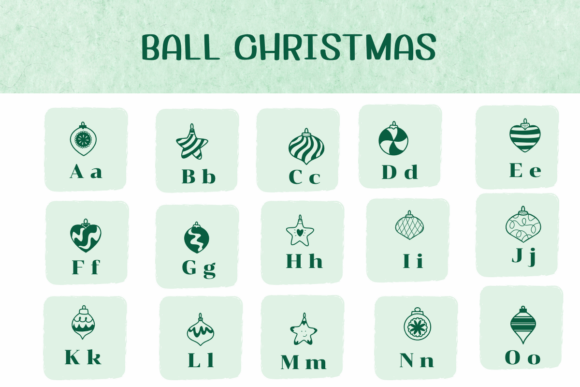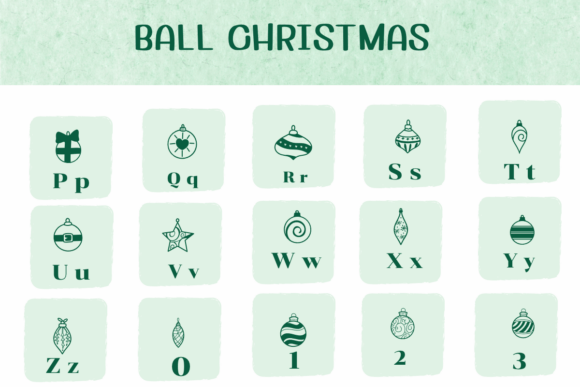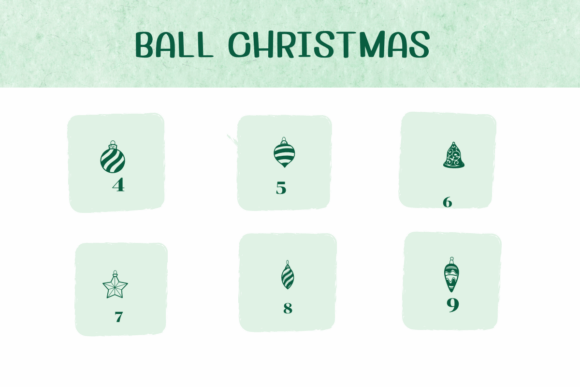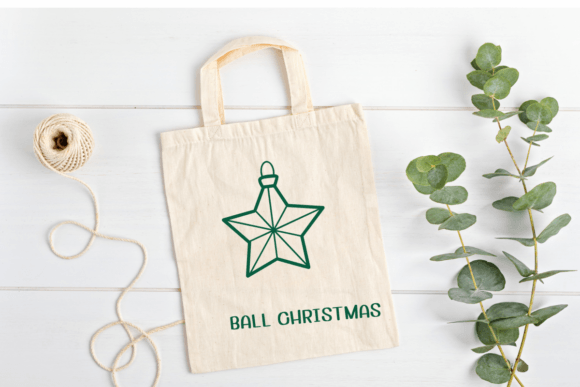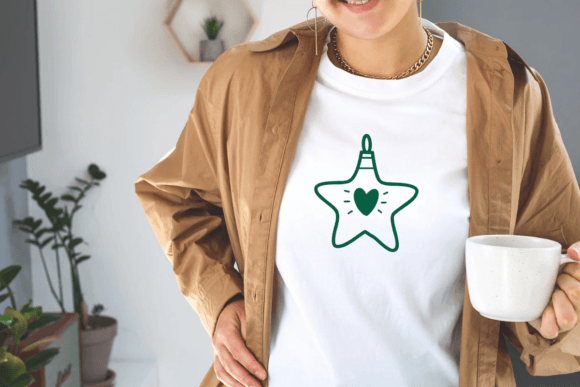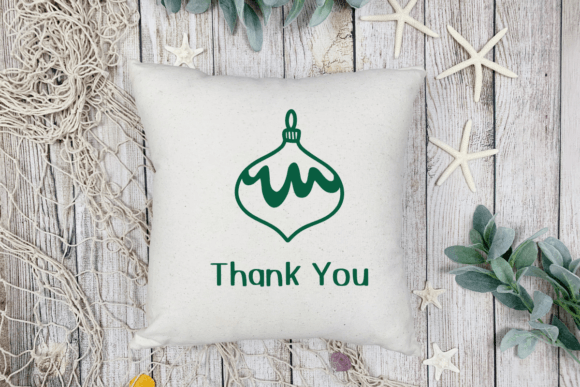
Deck the Halls with Ball Christmas Font: A Festive Dingbat Delight
Are you looking for a fun and creative way to add some holiday cheer to your designs, cards, and crafts? Look no further than the Ball Christmas Font, a delightful dingbat font that’s bursting with festive Christmas icons! In this article, we’ll dive into the magic of Ball Christmas Font and explore how you can use it to make your holiday designs shine.
What is Ball Christmas Font?
Ball Christmas Font is a unique dingbat font that’s specifically designed to bring a touch of holiday magic to your designs. Instead of traditional letters, this font features a collection of adorable Christmas icons, including ornaments, trees, gifts, and more. With its playful and whimsical style, Ball Christmas Font is perfect for designers, crafters, and anyone looking to add some festive flair to their projects.
Key Features of Ball Christmas Font
- Holiday-themed icons: The font features a range of cute and colorful Christmas icons, including ornaments, trees, gifts, snowflakes, and more.
- Scalable: The font is highly scalable, making it perfect for use on a variety of projects, from small crafts to large-scale designs.
- Fun and playful: The font’s playful style is sure to add a touch of holiday cheer to any design.
Uses for Ball Christmas Font
Ball Christmas Font is incredibly versatile, making it perfect for a wide range of projects and applications. Here are some ideas to get you started:
- Holiday cards and invitations: Use the font to create festive and fun holiday cards, invitations, and gift tags.
- Crafts and DIY projects: Add a touch of holiday magic to your crafts and DIY projects, such as scrapbooking, paper crafting, and more.
- Social media graphics: Use the font to create festive social media graphics, such as holiday-themed Facebook posts and Instagram stories.
- Web design: Add some holiday cheer to your website with festive headings, titles, and other design elements.
Tips for Using Ball Christmas Font
Here are some tips for getting the most out of Ball Christmas Font:
- Experiment with different sizes and colors: Play around with different sizes and colors to find the perfect combination for your design.
- Mix and match icons: Combine different icons to create unique and interesting designs.
- Use it with other fonts: Pair Ball Christmas Font with other fonts to create a unique and eye-catching design.
Ball Christmas Font is a fun and festive dingbat font that’s perfect for adding a touch of holiday cheer to your designs, cards, and crafts. With its playful style and wide range of uses, it’s a must-have for designers, crafters, and anyone looking to get into the holiday spirit. So why wait? Download Ball Christmas Font today and start creating your own festive holiday designs!